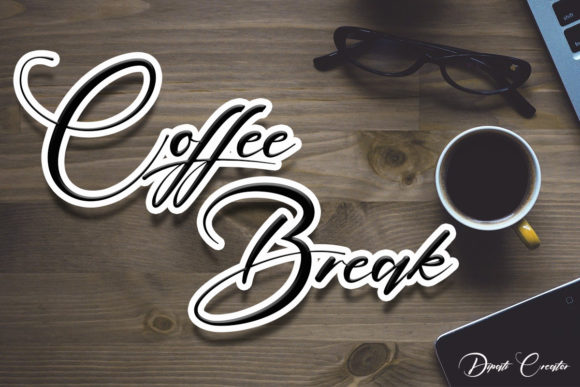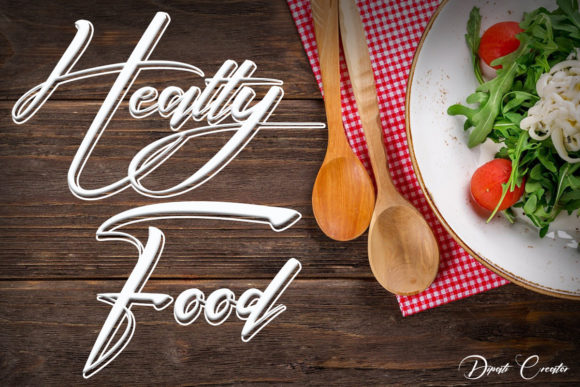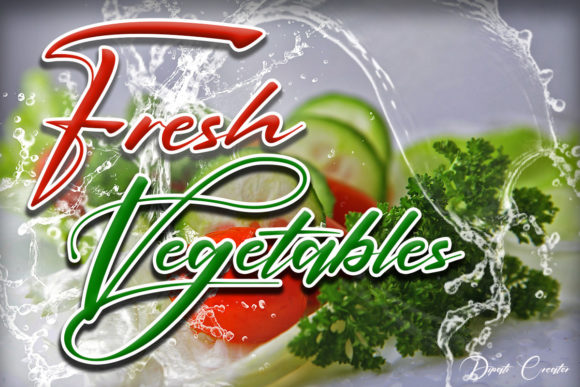
About Signatine Font
Signatine is an elegant script font, that features a very delicate and classy look. So balanced and good look. This font is perfect for designing t-shirts, invitations, magazines, greeting cards and more. this font was designed to enhance the beauty of your projects.